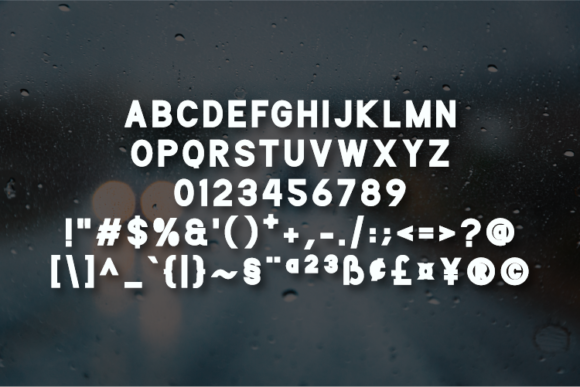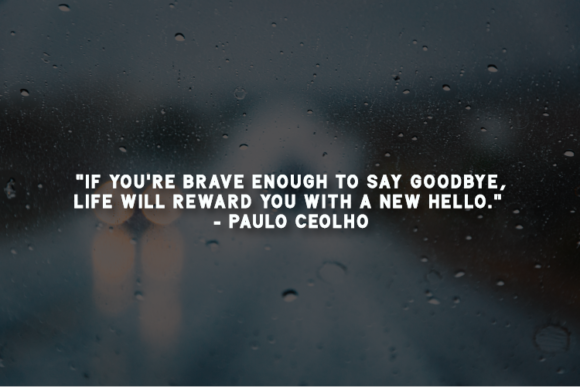
Dolphino Font: A Versatile Sans Serif Font for Your Design Needs
In the world of design, typography plays a crucial role in conveying messages, expressing creativity, and enhancing the overall aesthetic appeal of a project. When it comes to selecting the perfect font for your design, it’s essential to choose one that is both visually appealing and versatile. This is where Dolphino Font comes in – a nice looking sans serif font that can complement any design you’re currently developing.
What Makes Dolphino Font Stand Out?
Dolphino Font is an incredibly asset to your fonts’ library, regardless of the topic or theme of your project. Its clean and modern sans serif design makes it an excellent choice for a wide range of applications, from digital designs to print materials. The font’s versatility stems from its ability to adapt to different contexts, making it an ideal choice for designers and crafters looking for a reliable and stylish font.
Key Features of Dolphino Font
- Clean and Modern Design: Dolphino Font boasts a sleek and contemporary sans serif design that will add a touch of sophistication to your projects.
- Versatility: This font is suitable for various design applications, including logos, headings, body text, and more.
- Easy to Read: The font’s clear and legible design ensures that your text is easy to read, making it perfect for both digital and print materials.
- High-Quality: Dolphino Font is a high-quality font that is designed to deliver exceptional results, whether you’re working on a personal project or a professional assignment.
How to Use Dolphino Font in Your Designs
Dolphino Font can be used in a variety of design applications, including:
- Logos and Branding: Create a professional and modern logo for your business or personal brand using Dolphino Font.
- Web Design: Use Dolphino Font as a heading or body text font for your website, ensuring a clean and consistent design.
- Print Materials: Add a touch of elegance to your print materials, such as brochures, flyers, and business cards, with Dolphino Font.
- Social Media Graphics: Create engaging social media graphics, such as Facebook posts and Instagram stories, using Dolphino Font.
Why Choose Dolphino Font?
With so many fonts available, why should you choose Dolphino Font for your design needs? Here are a few compelling reasons:
- Unique and Stylish: Dolphino Font offers a unique and stylish design that will set your project apart from others.
In conclusion, Dolphino Font is an excellent addition to any designer’s font library. Its clean and modern sans serif design, versatility, and ease of use make it an ideal choice for a wide range of design applications. Whether you’re working on a personal project or a professional assignment, Dolphino Font is sure to elevate your creations and help you achieve your design goals.